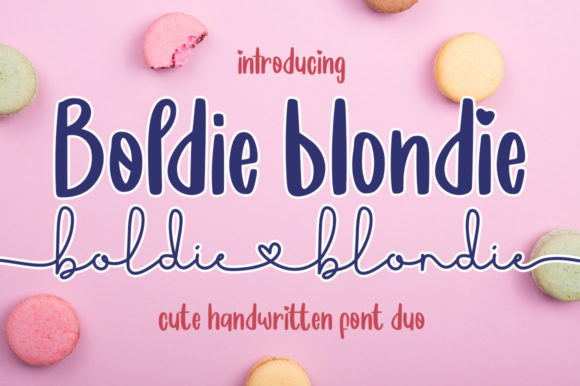
Introduce yourself to the marvelous world of Boldie Blondie, a match made in font heaven! This enchanting duo font boasts beautiful, neat characters that blend seamlessly with a diverse array of designs. Unleash your creativity and let Boldie Blondie dance across your logos, branding, social media posts, crafty DIY projects, and beyond.
With Boldie Blondie, the possibilities are endless. Picture your designs adorned with this charming font, captivating your audience with its playful spirit. The meticulously crafted characters of Boldie Blondie bring a touch of elegance and sophistication to any project, making it the perfect choice for those seeking a font that exudes both style and substance.
And here's the best part: Boldie Blondie is PUA encoded, which means you can effortlessly access all of its glyphs and swashes. Open up a world of creative opportunities and let your imagination soar as you explore the endless possibilities that Boldie Blondie has to offer.
Don't miss out on this exceptional font duo. Embrace the magic of Boldie Blondie today and let your designs shine brighter than ever before!